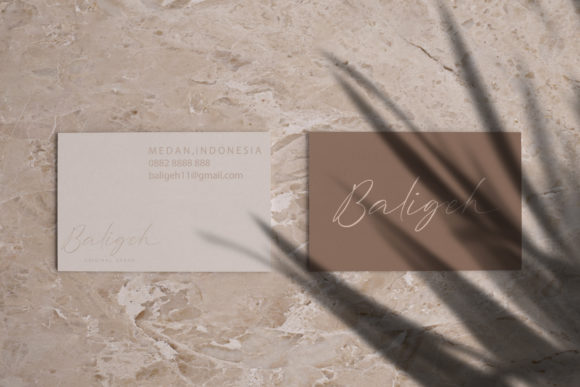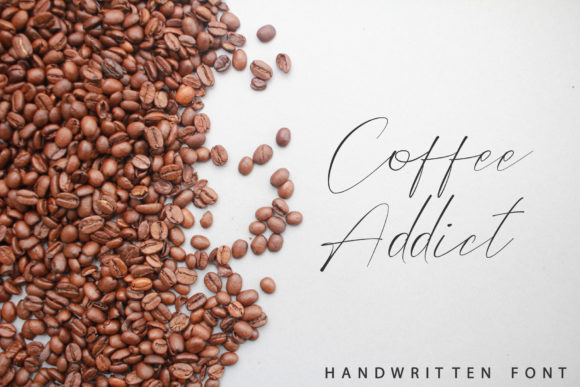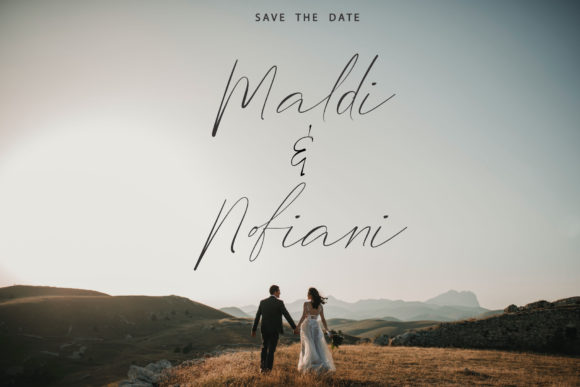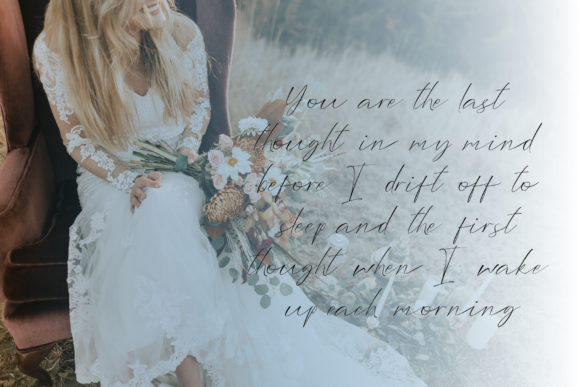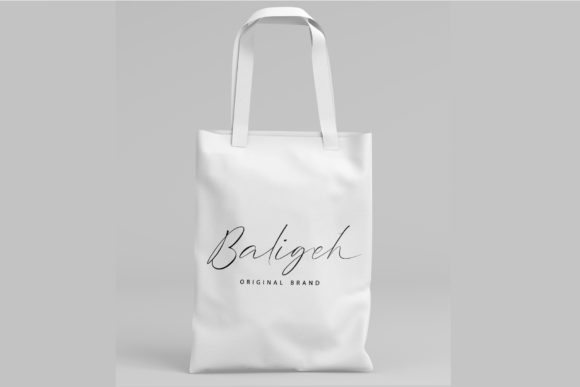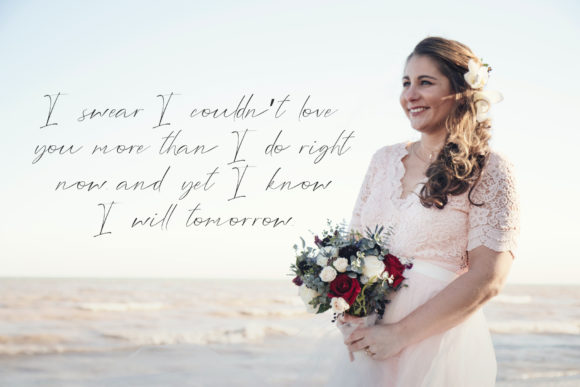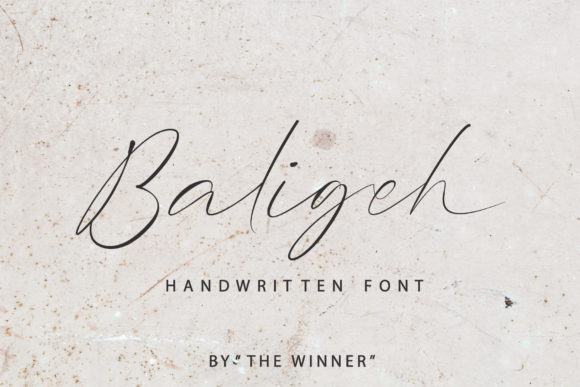
Introducing Baligeh Font: The Perfect Handwritten Font for Creative Projects
Are you a designer, craftsperson, or social media enthusiast looking for a unique and versatile font to elevate your creative projects? Look no further than Baligeh Font, a thin and casual handwritten font that’s perfect for a wide range of applications. In this article, we’ll explore the features and benefits of Baligeh Font, and show you how it can add a touch of personality and style to your work.
What is Baligeh Font?
Baligeh Font is a beautifully crafted handwritten font that’s designed to be both elegant and approachable. Its thin and casual lines give it a relaxed, friendly feel that’s perfect for social media posts, advertisements, product packaging, and more. Whether you’re looking to add a personal touch to your designs or create a cohesive brand identity, Baligeh Font is an excellent choice.
Key Features of Baligeh Font
• Thin and casual lines: Baligeh Font features delicate, hand-drawn lines that give it a light and airy feel.
• Handwritten style: This font is designed to mimic the look and feel of handwritten text, adding a touch of personality and whimsy to your designs.
• Versatile: Baligeh Font is perfect for a wide range of applications, from social media posts and advertisements to product packaging and labels.
• Easy to read: Despite its delicate lines, Baligeh Font is surprisingly easy to read, making it perfect for body text and captions.
Use Cases for Baligeh Font
So, what can you use Baligeh Font for? The possibilities are endless! Here are a few ideas to get you started:
• Social media posts: Add a personal touch to your social media posts with Baligeh Font. It’s perfect for Instagram captions, Facebook updates, and Twitter posts.
• Advertisements: Use Baligeh Font to create eye-catching advertisements that stand out from the crowd.
• Product packaging: Add a touch of elegance to your product packaging with Baligeh Font. It’s perfect for labels, tags, and branding materials.
• Product design: Use Baligeh Font to create beautiful product designs that showcase your brand’s personality.
• Labels and stickers: Baligeh Font is perfect for creating labels and stickers for your products or promotions.
• Photography: Use Baligeh Font to add captions and quotes to your photos.
• Logos and branding: Create a unique and memorable logo with Baligeh Font. It’s perfect for startups, small businesses, and entrepreneurs.
• Special events: Use Baligeh Font to create beautiful invitations, programs, and other materials for special events like weddings, conferences, and festivals.
Why Choose Baligeh Font?
So, why should you choose Baligeh Font for your creative projects? Here are a few reasons:
• Unique and distinctive: Baligeh Font is a one-of-a-kind font that’s sure to set your designs apart from the crowd.
• High-quality: Baligeh Font is a high-quality font that’s designed to look great in any context.
• Versatile: As we mentioned earlier, Baligeh Font is perfect for a wide range of applications.
In conclusion, Baligeh Font is a beautiful and versatile handwritten font that’s perfect for designers, craftspersons, and social media enthusiasts. Its thin and casual lines give it a relaxed, friendly feel that’s perfect for a wide range of applications. Whether you’re looking to add a personal touch to your designs or create a cohesive brand identity, Baligeh Font is an excellent choice. So why wait? Download Baligeh Font today and start creating stunning designs that showcase your personality and style!